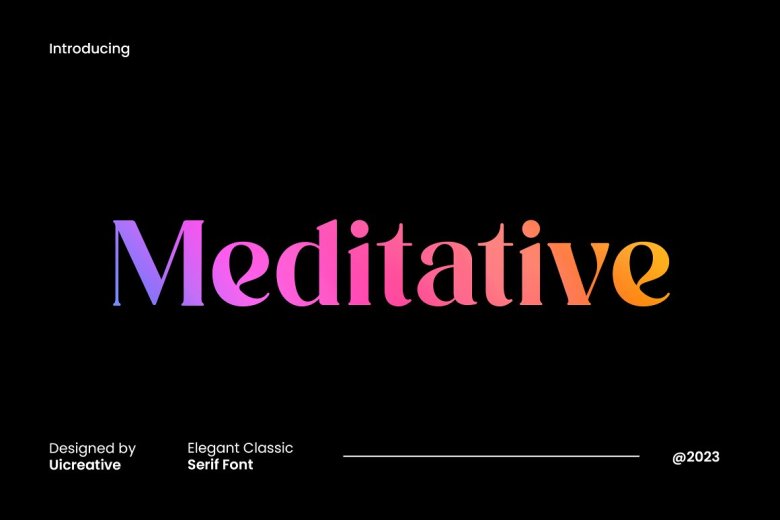
Meditative Font
With our new product, Meditative Font. Modern Serif font that is beautiful classy, elegant and modern. This font is perfect for a wide variety of projects, including signature, stationery, and logo typography, wedding paragraph design for magazines or book covers website headers clothing makes branding or packages looking good-even fashion-related branding and editorial design appear to be male and female because of its perfect temperament.
Meditative Elegant Serif Font